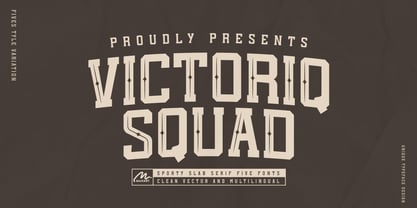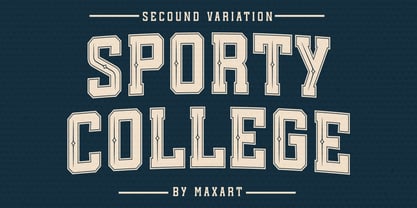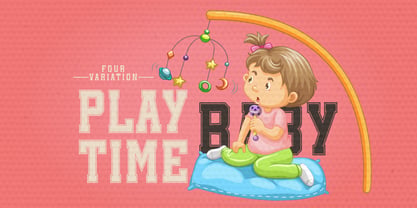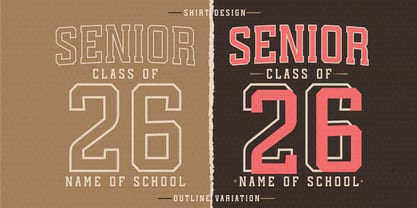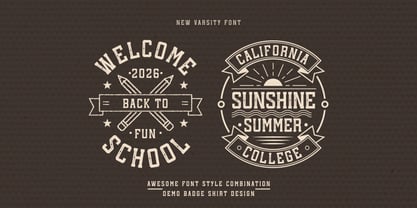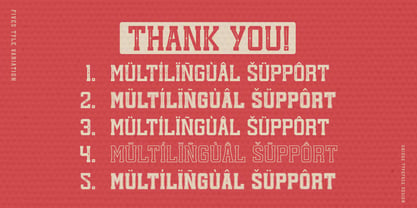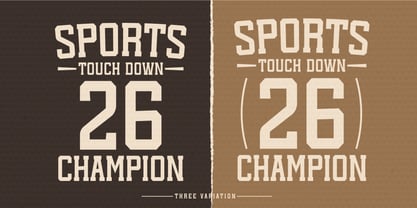
Victoriq Squad
by MaxArt
The Victoriq Squad Font Family was designed by Md Masud Rana and published by MaxArt. Victoriq Squad contains 5 styles and family package options. More about this family
Victoriq Squad is a bold sporty slab serif font family inspired by classic varsity and athletic lettering. With strong geometric shapes and sharp slab details, it’s perfect for sports logos, varsity badges, apparel, posters, gaming, branding, and bold headline designs.
Includes 5 font styles with multilingual support for creating powerful and authentic sporty typography.